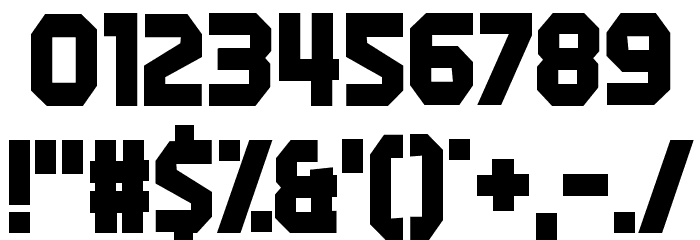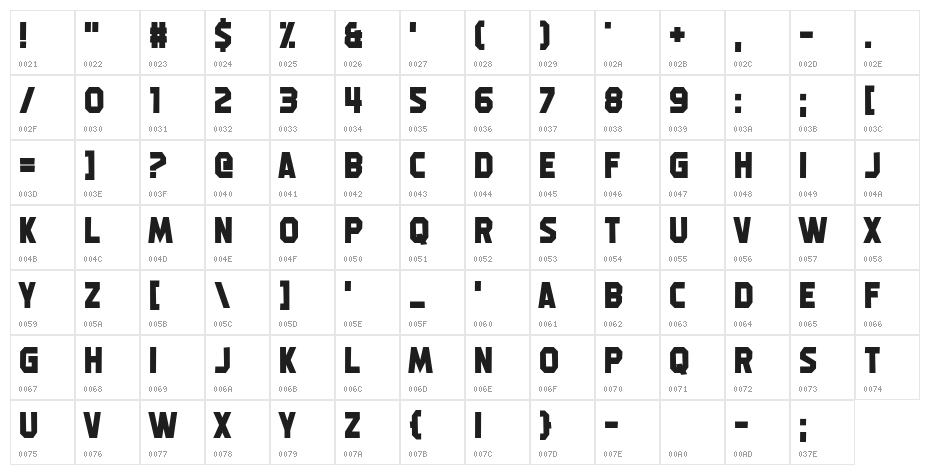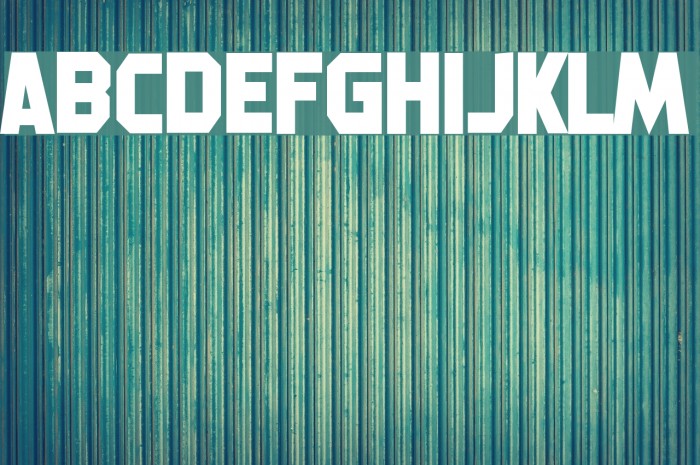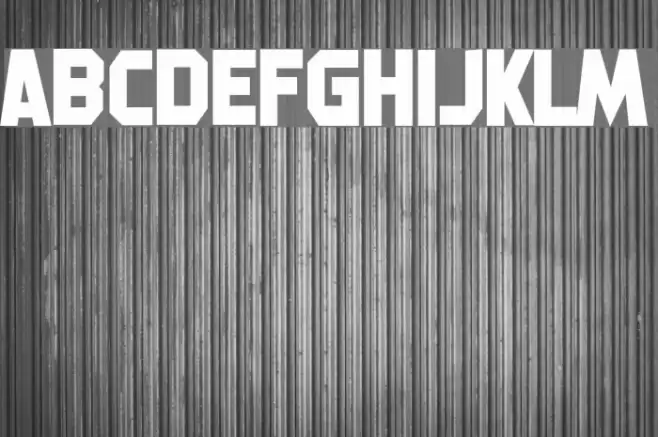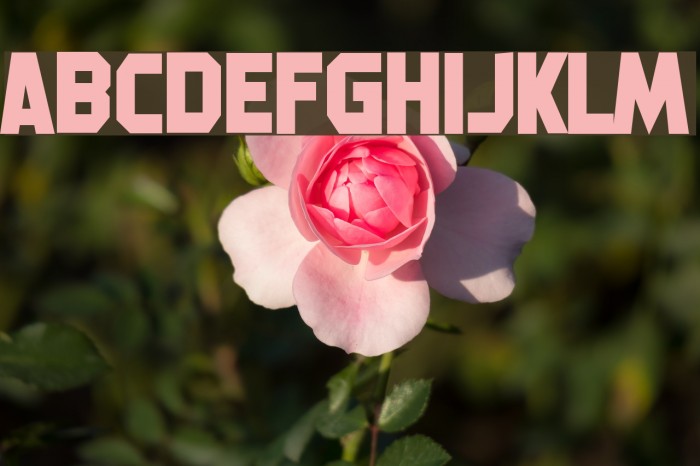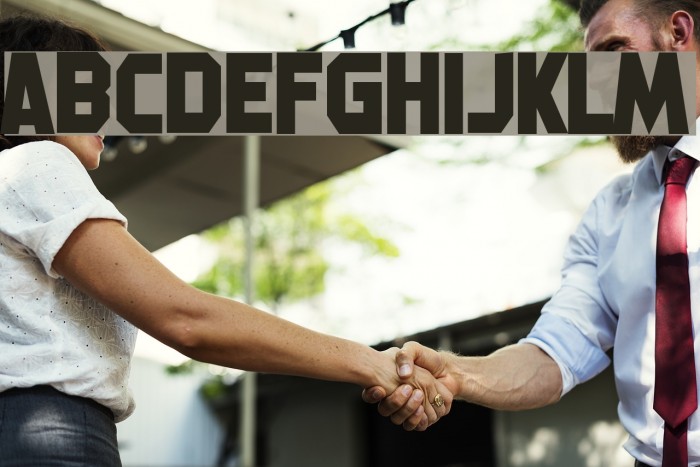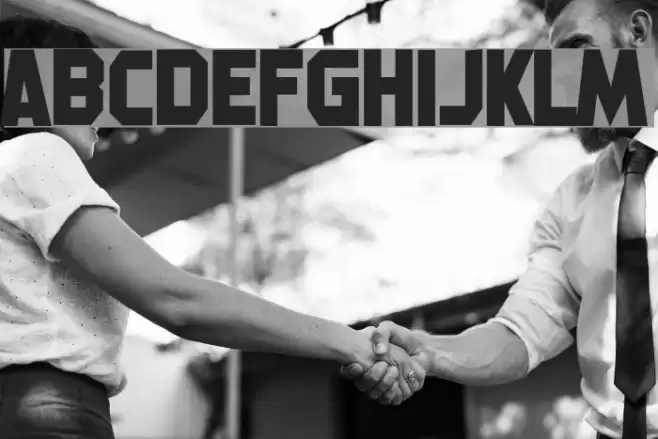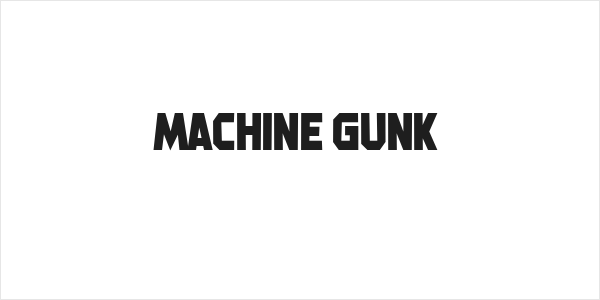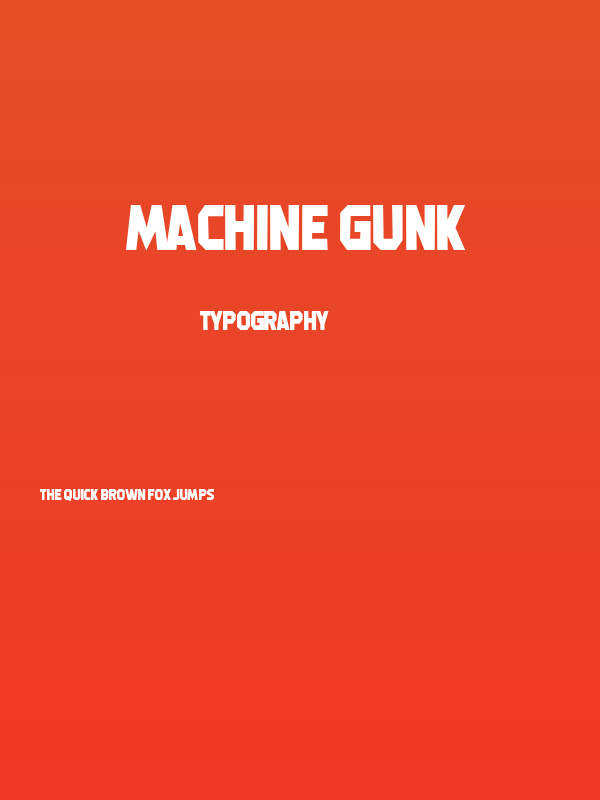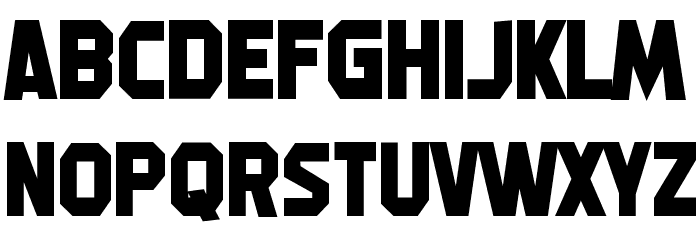
Machine Gunk Font
Machine Gunk Description
This font features a bold, geometric design with sharp, angular edges and a strong presence. The characters are constructed with a blocky, industrial aesthetic, giving them a mechanical and futuristic feel. The uppercase and lowercase letters maintain a consistent weight, contributing to a uniform appearance. Numbers and special characters follow the same design principles, ensuring a cohesive look across all glyphs. The font's style is reminiscent of digital or sci-fi themes, making it suitable for projects that require a modern and edgy touch.
| Proposed Projects | Ideal for sci-fi movie posters, video game titles, tech branding, and industrial-themed designs. |